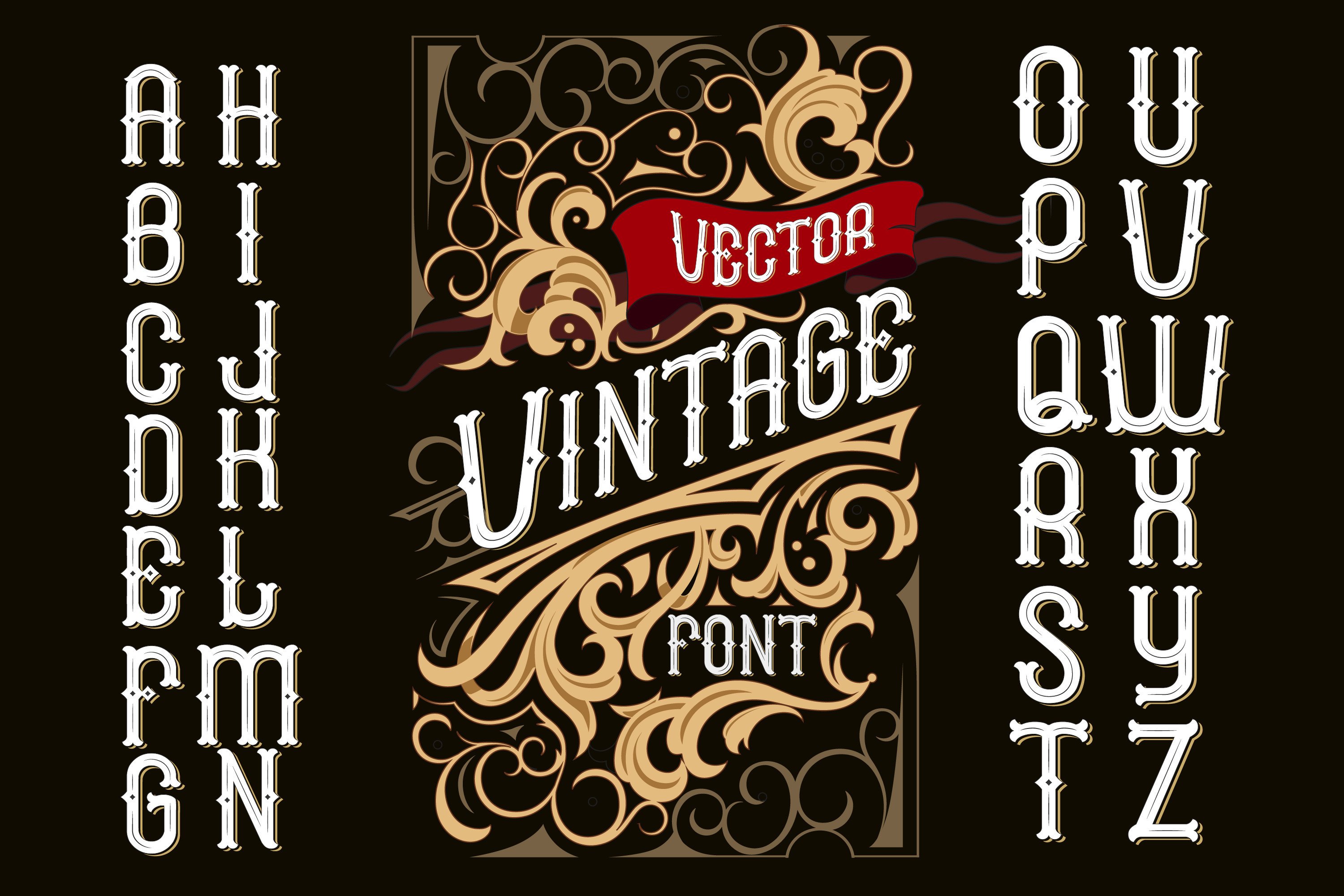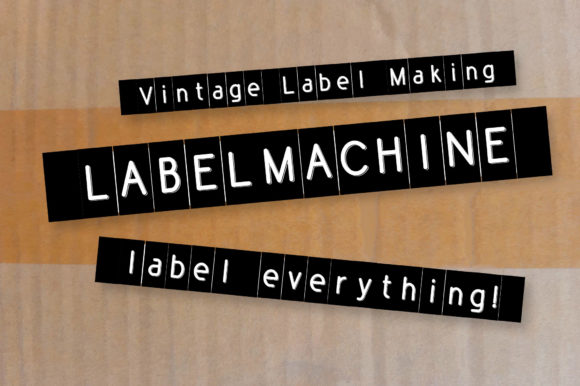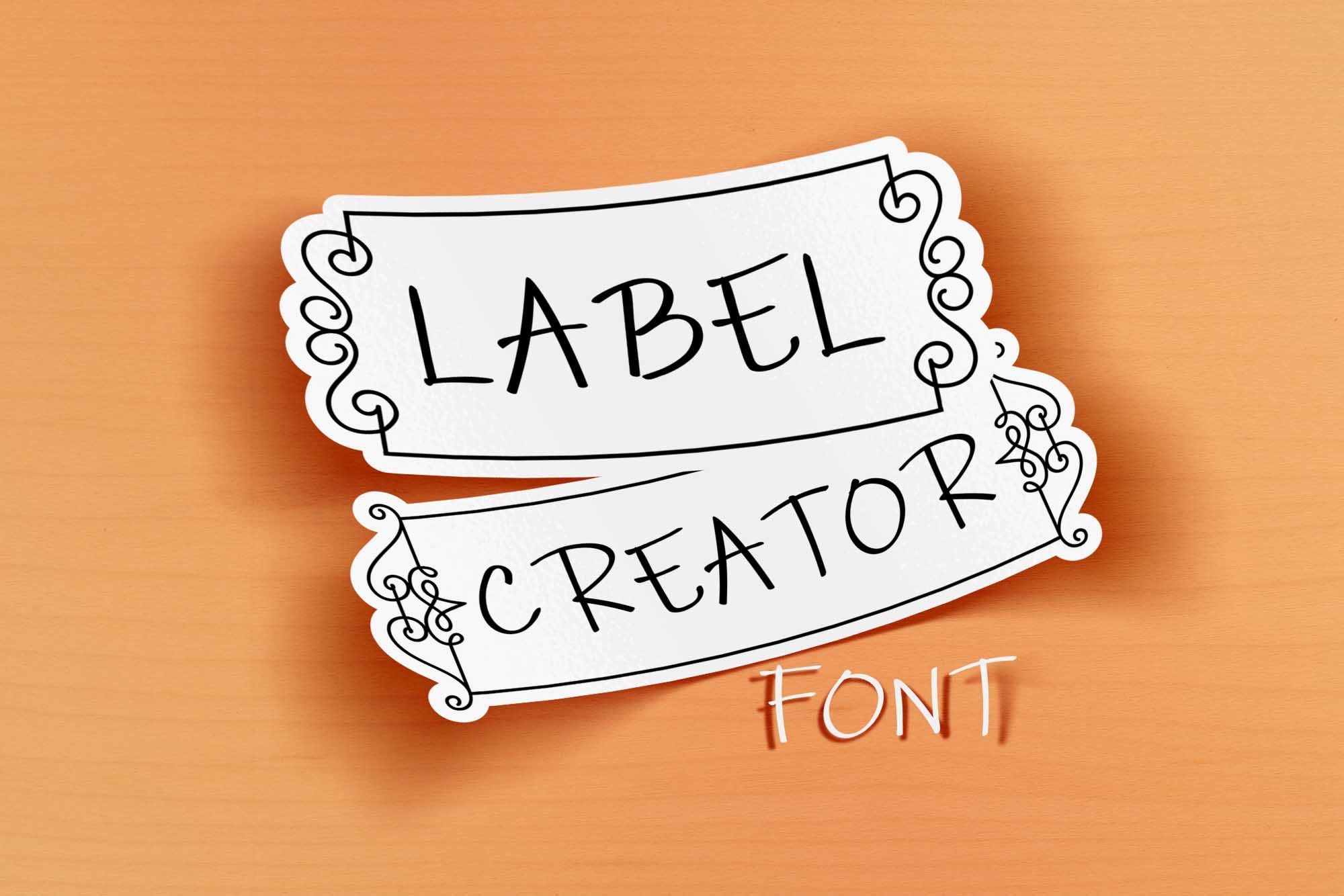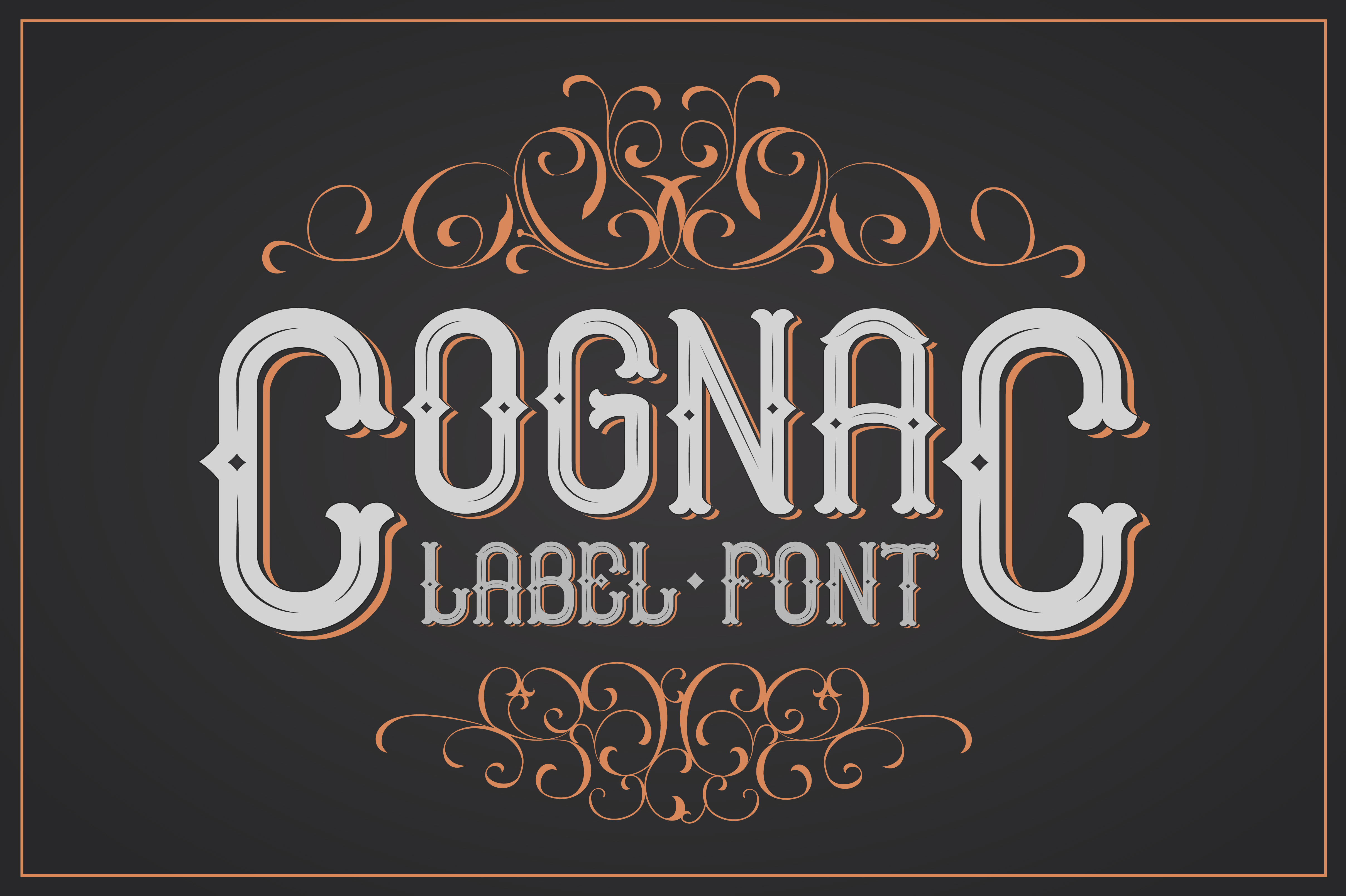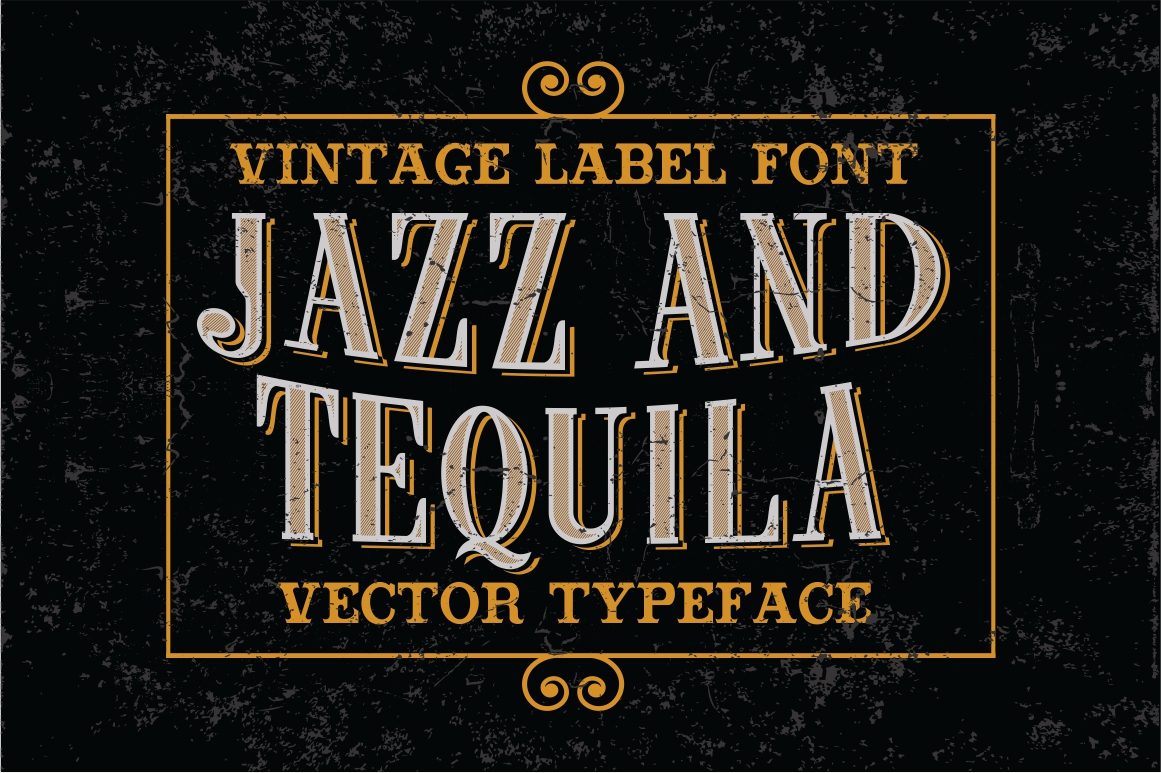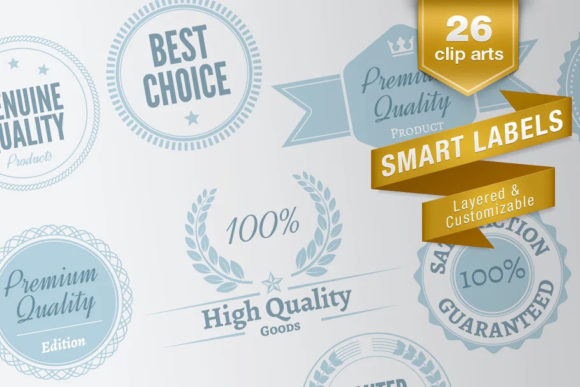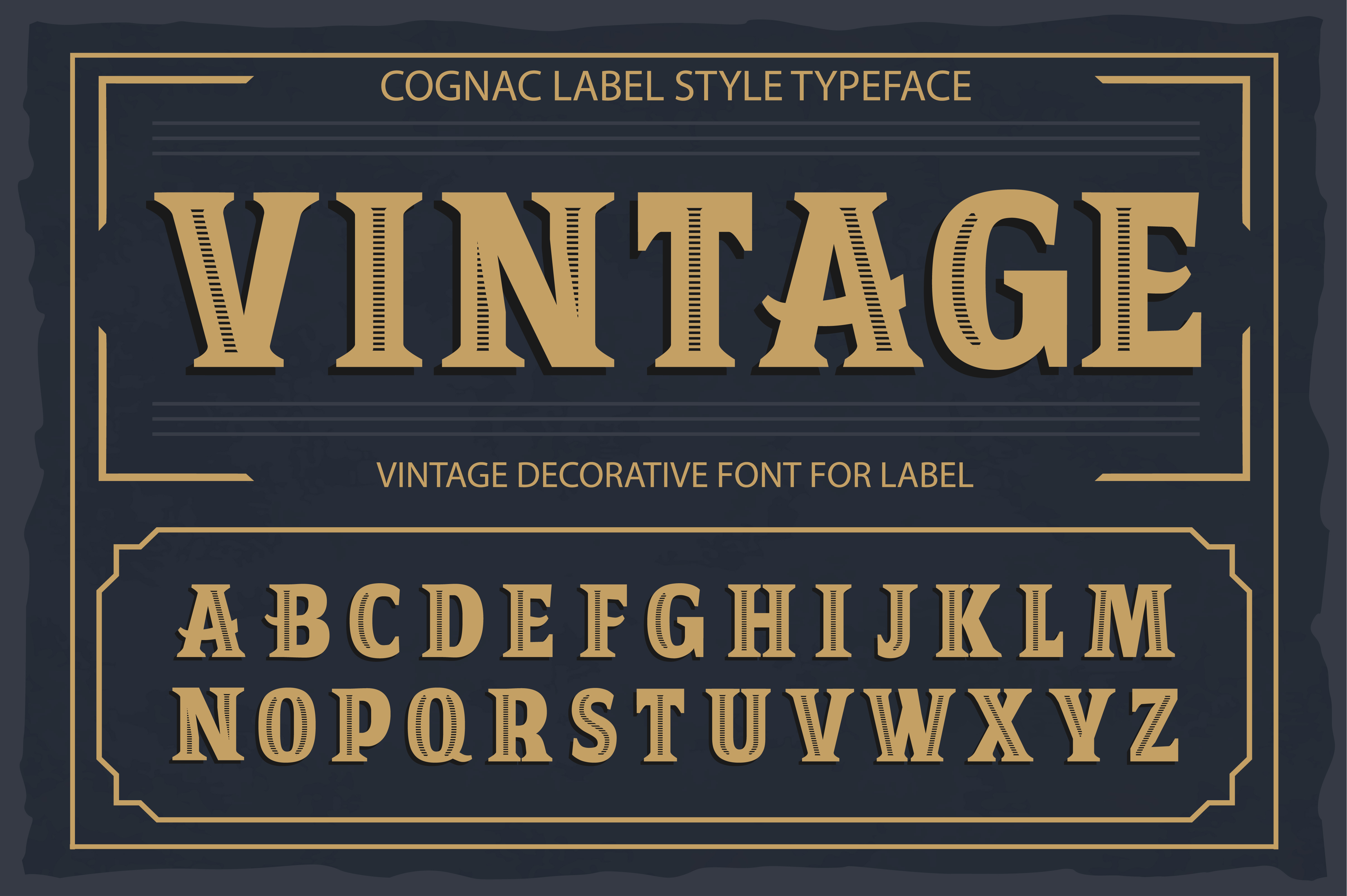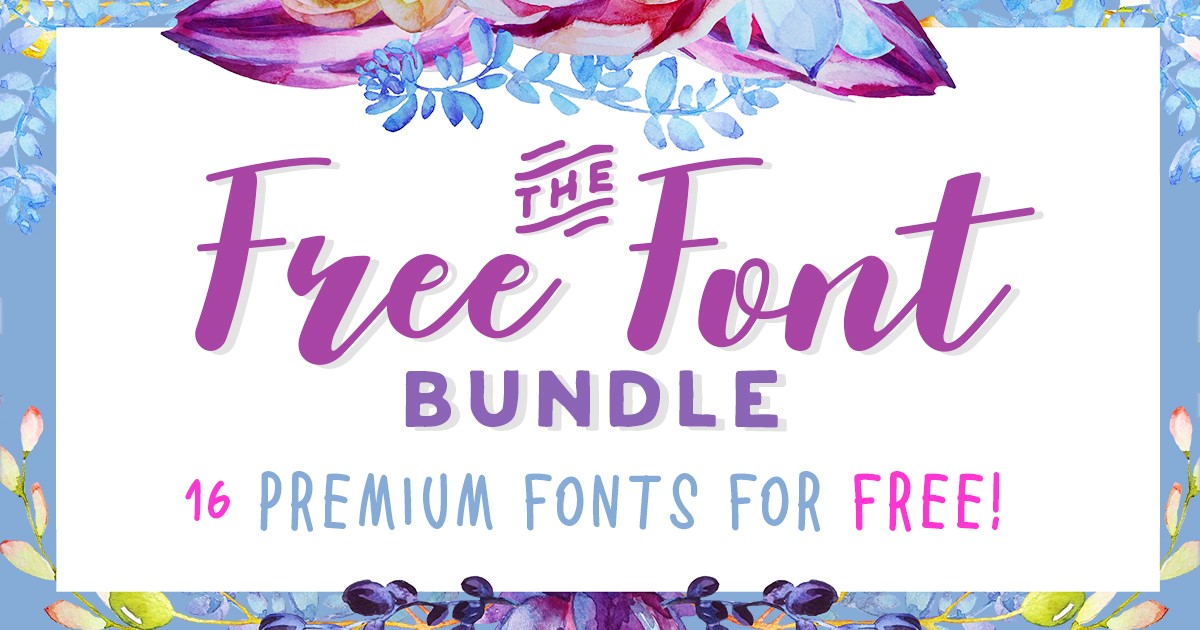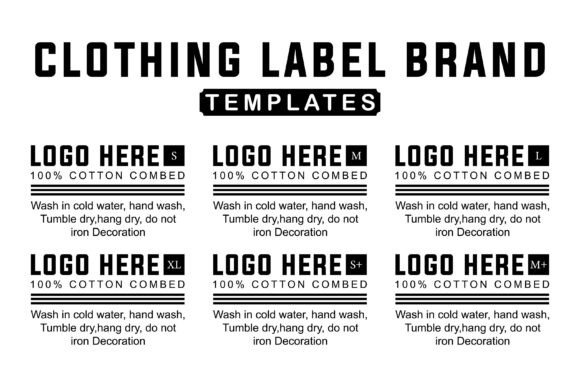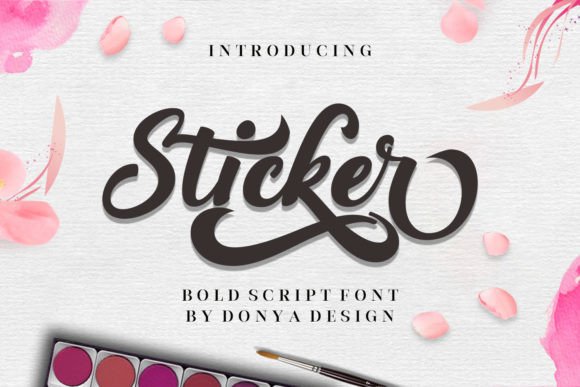
Discover 20 of the most stunning label fonts to transform your product, packaging, and branding designs. Explore unique serif, sans-serif, and script fonts—many available on Creative Fabrica—to make your labels stand out and resonate with your target audience, whether you sell on Etsy, Amazon, or beyond.
Choosing the right label font can instantly elevate your brand recognition, give your packaging a professional polish, and set your product apart in a crowded marketplace. In 2026, global trends and AI-powered tools are rapidly influencing how designers, crafters, and online sellers select typography for labels. Whether you are refreshing a small business brand, updating Etsy shop packaging, or searching for trending label design ideas, this curated list of the best label fonts—including sought-after Creative Fabrica fonts—will help you create lasting appeal. For additional inspiration, don’t miss our guide on 12 Retro Groovy Fonts for Canva Projects (2026).
Vintage Label Font Graphic by Fractal font factory
This decorative label font delivers an authentic vintage look that’s perfect for artisanal products, trendy packaging, and nostalgic branding. Its high-contrast strokes and ornate detail make any product label pop, whether you’re rebranding a boutique or designing unique craft beer labels. The versatile set includes uppercase, lowercase, and alternative glyphs for flexibility across various projects.
Label Machine Font by pointsandpicas
Label Machine Font offers a functional, slightly retro feel inspired by old-fashioned label makers. Its clean sans-serif structure is ideal for modern branding and packaging design where clarity is key. The font provides easy legibility for product names, tags, and even address labels—suitable for both digital and print projects.
Label Creator Font by Digital Typeface Studio
Label Creator Font blends a playful handwritten style with vintage flair, making it a favorite for creative DIY tag projects and retro product packaging. This font stands out on handmade goods, jam jars, or stationery labels. Its charming imperfections bring warmth and personality, reflecting the handmade movement in 2026 label design ideas.
Cognac Font by Fractal font factory
Cognac delivers a bold visual punch with dynamic serifs and luxury flavor, tailor-made for premium bottle labels, gourmet foods, and high-end packaging. Its readability ensures standout branding on crowded shelves, while the striking letterforms deliver a sense of exclusivity. Cognac is an excellent choice for anyone seeking to communicate quality and heritage.
20 Vintage Fonts Bundle Bundle
This comprehensive bundle features 20 curated vintage-inspired fonts ideal for label design. With a range of serif, sans-serif, and script styles, it offers immense flexibility for branding, event invitations, and packaging projects. If you’re looking for the best label fonts in one collection, this Creative Fabrica bundle is unbeatable in value and variety.
Vintage Label Font Graphic by Fractal font factory
Designed with a distinct Victorian feel, this font is perfect for designers seeking ornate touches and authentic historical charm. Its detailed embellishments enhance labels for boutique foods, scented candles, or heritage brands. This set will help your packaging tell a story and attract attention in both modern and traditional markets.
Jazz and Tequila – Vintage Label Font Graphic by Whityleon · Creative Fabrica
This bold, playful font packs lots of personality—perfect for spirits labels, festival branding, or lifestyle packaging. Its geometric accents and lively forms evoke a fun, energetic vibe that stands out on the shelf. Jazz and Tequila is a strong pick for anyone seeking a memorable, expressive font for creative label design.
Smart Labels Font by Juraj Chrastina
Smart Labels Font offers clean, versatile sans-serif letterforms suitable for both minimalist and bold modern branding. It’s optimized for legibility and works seamlessly with barcodes and ingredient lists, making it ideal for commercial and retail applications. Its understated style ensures your messaging remains front and center.